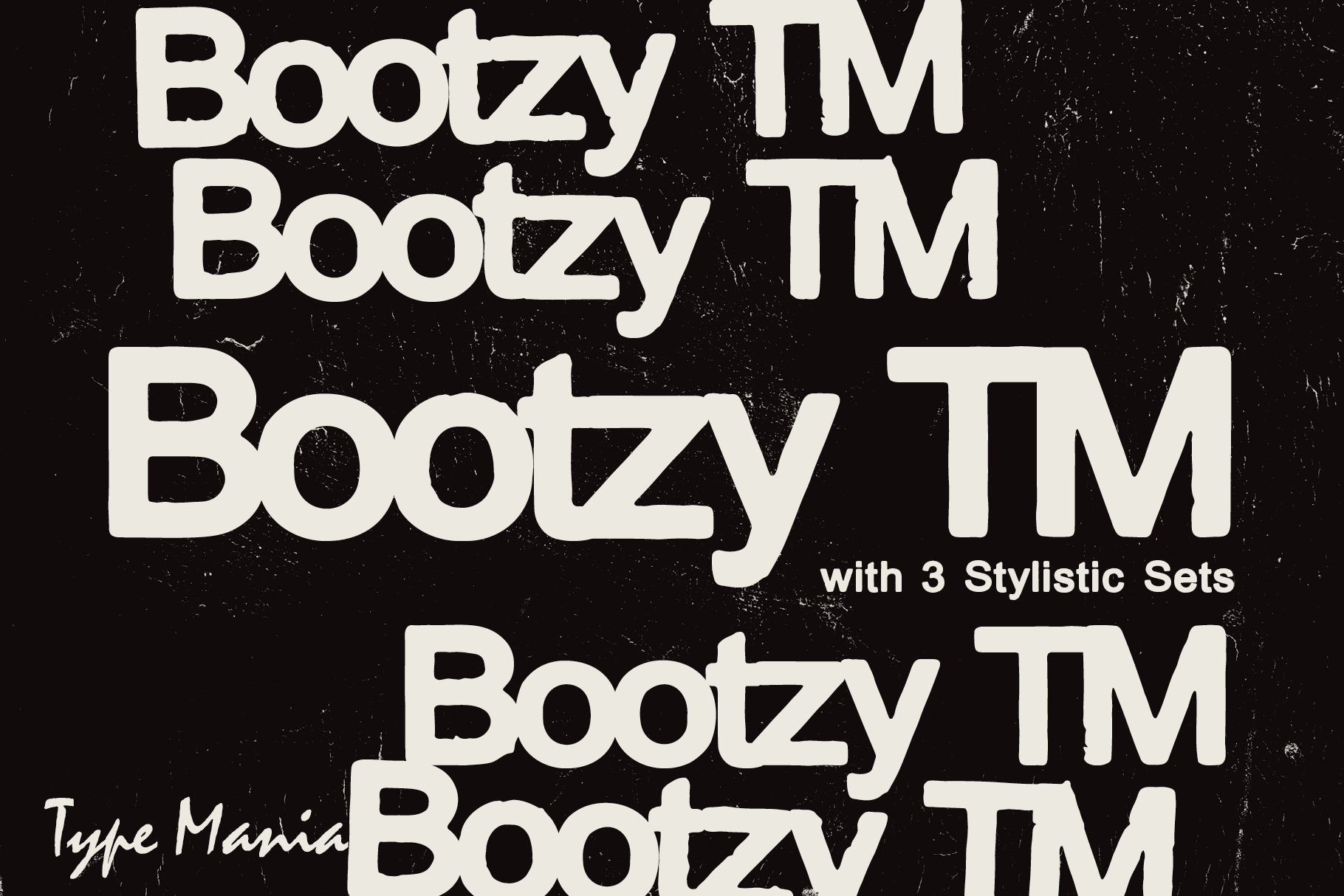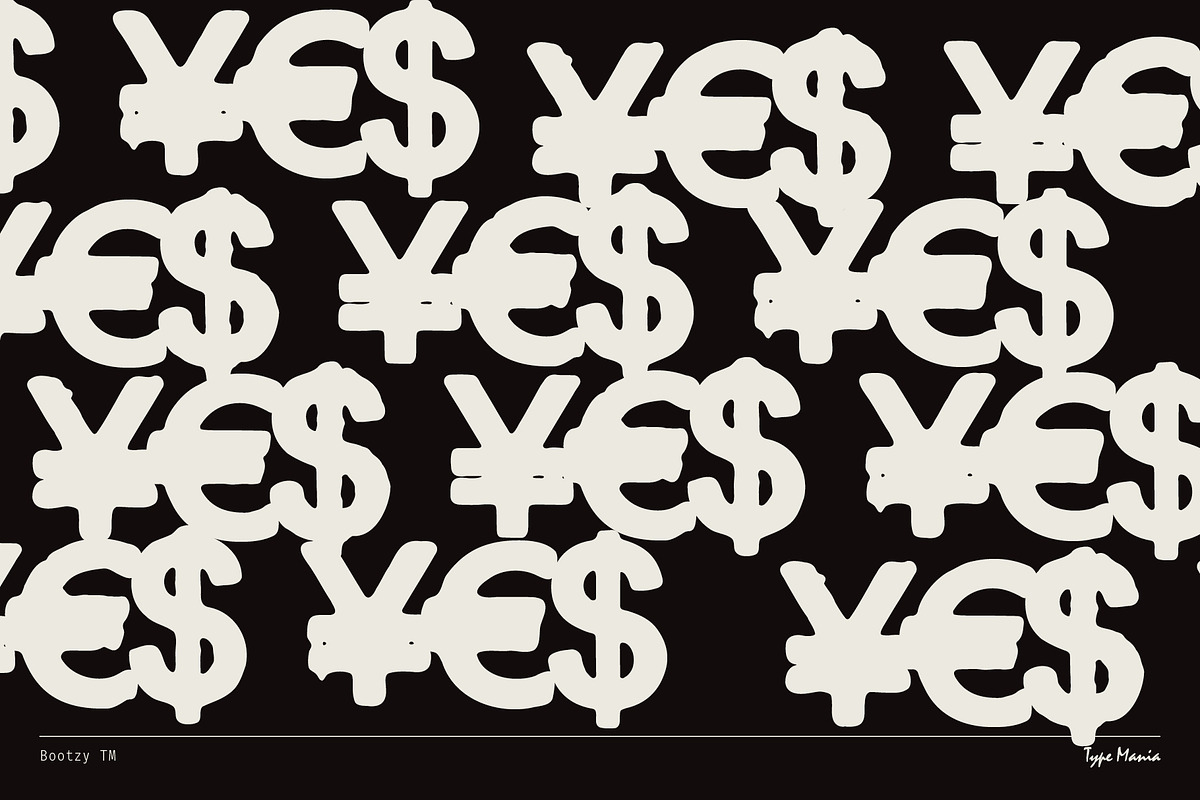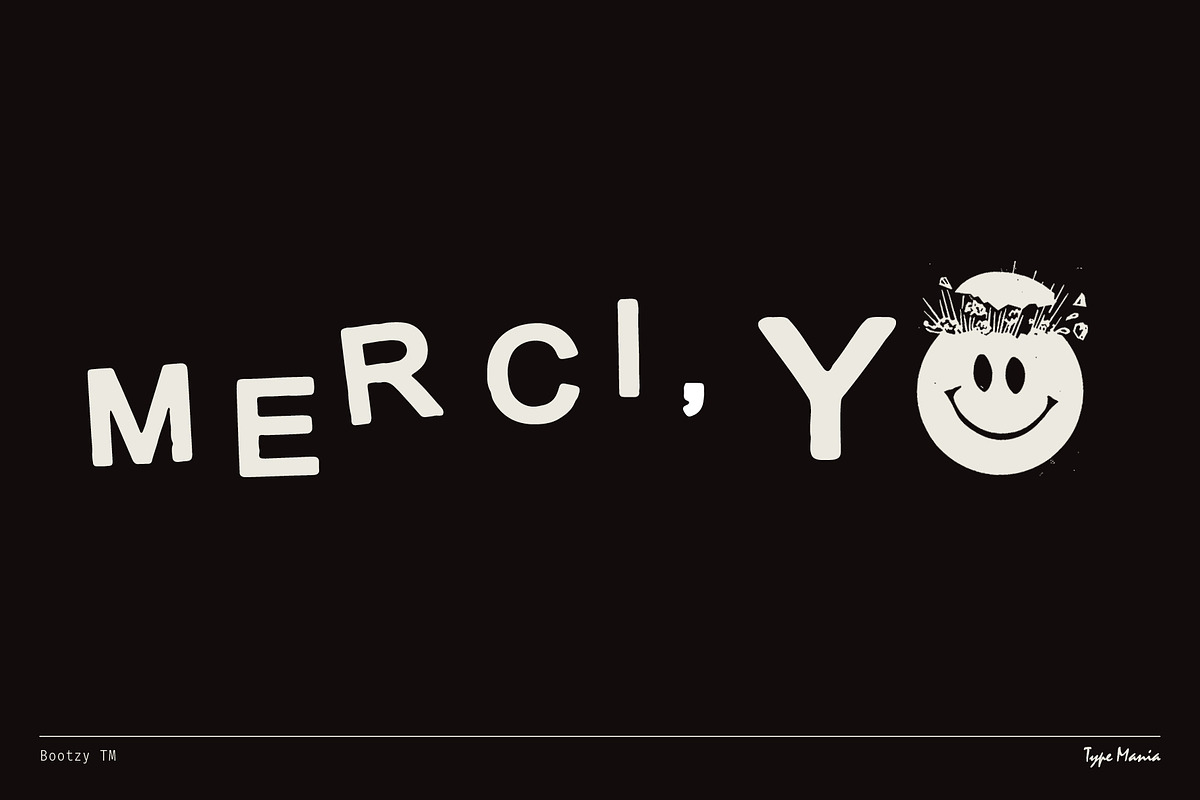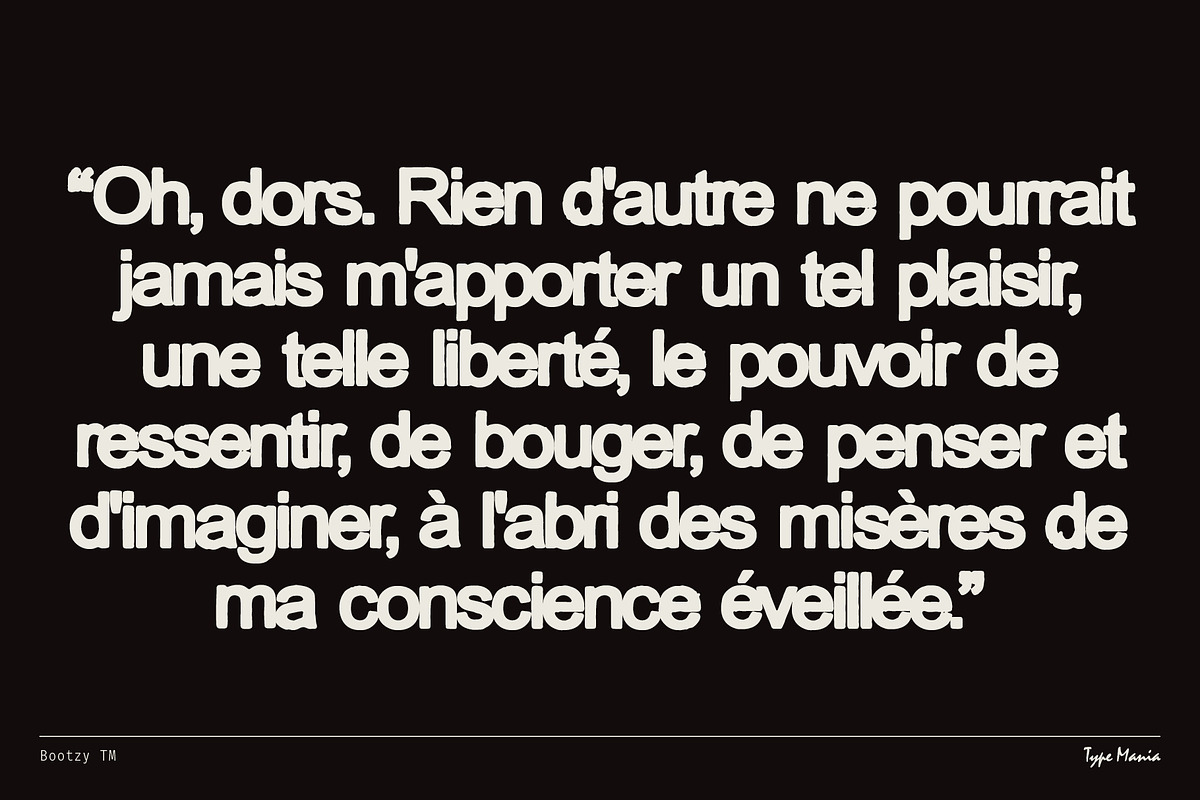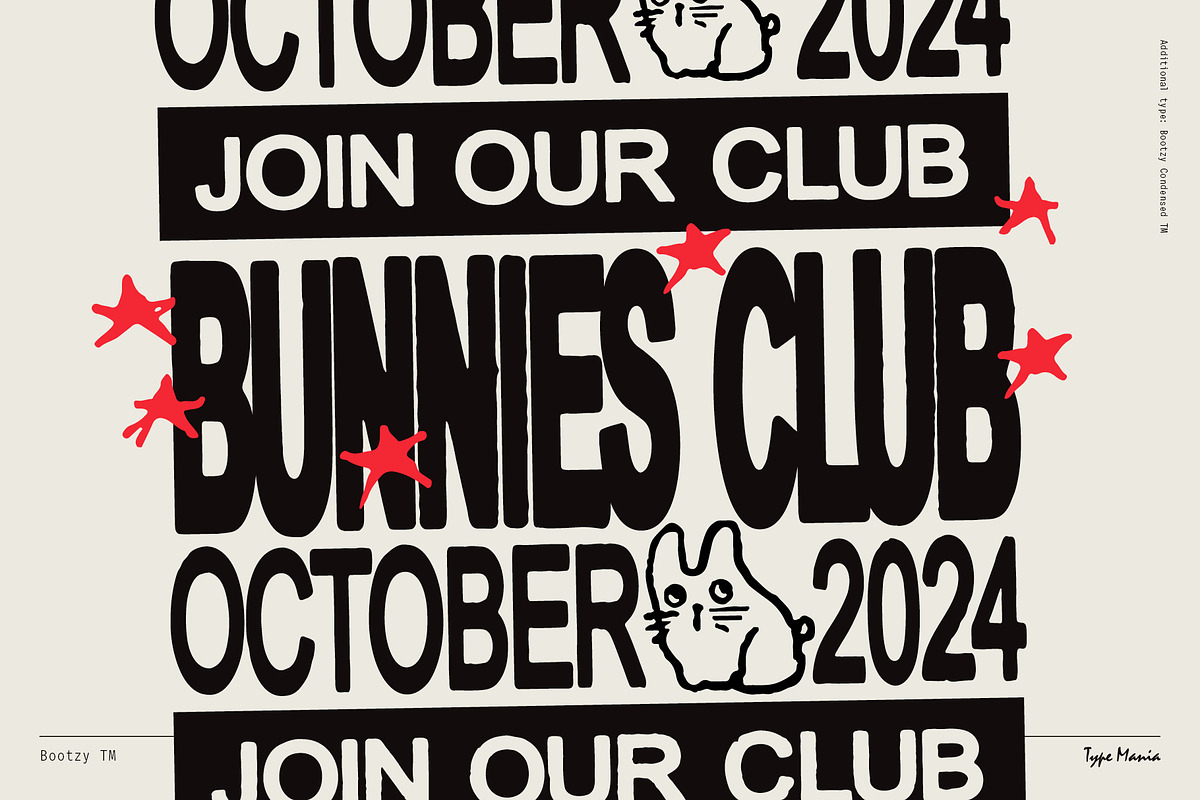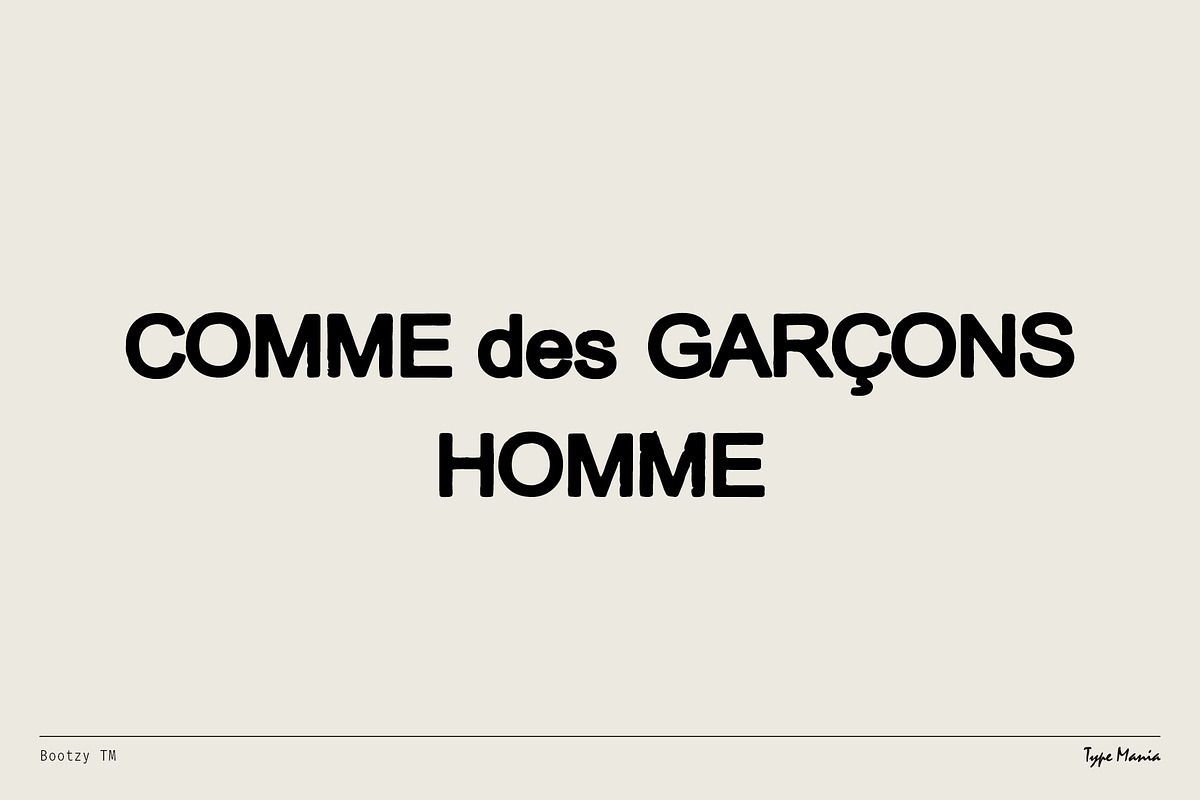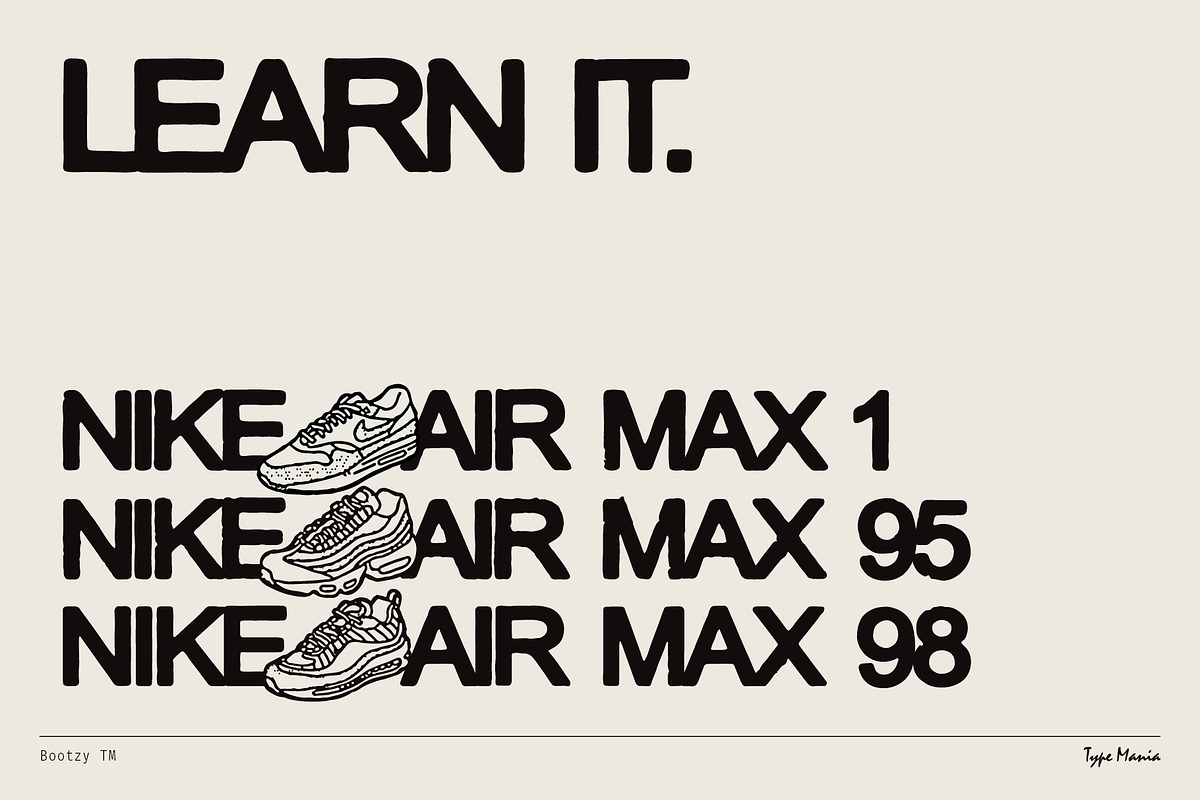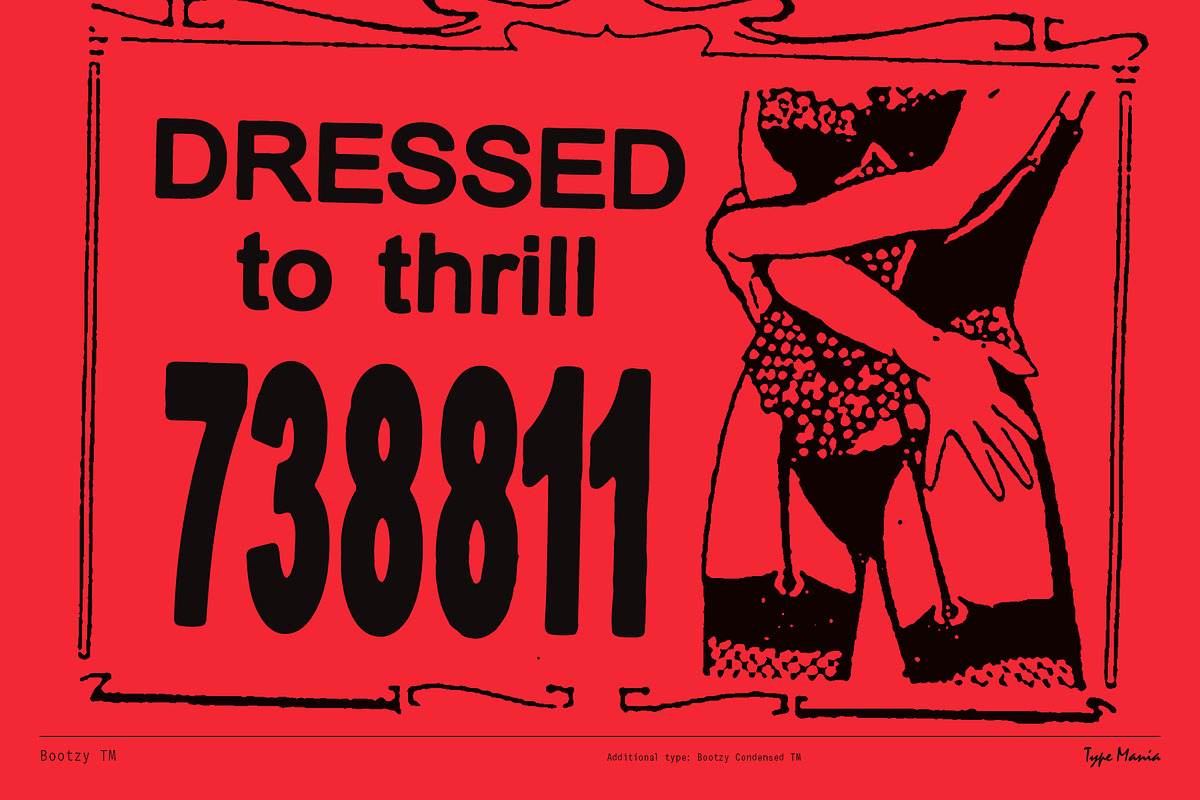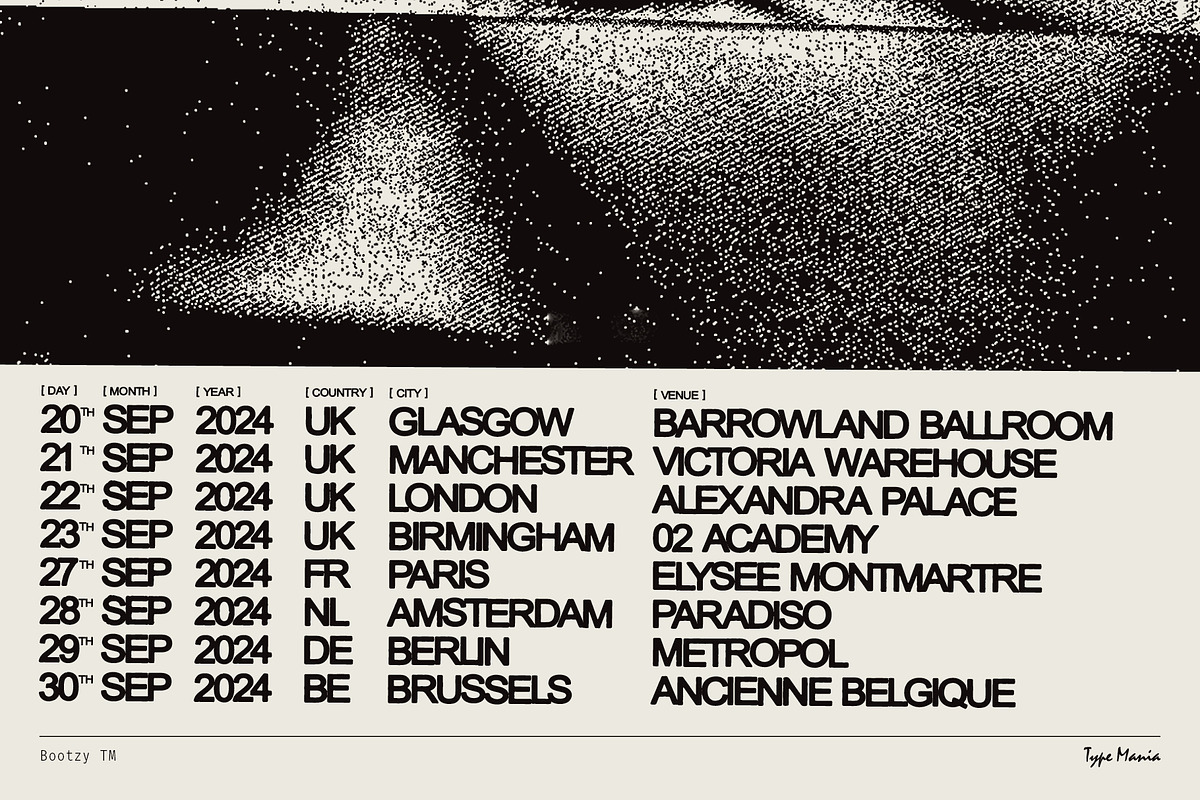
Bootzy TM – Rugged Dynamic Font
Introducing Bootzy TM. A tough sans serif designed to elevate your flyers, album covers, t-shirt designs; what have you. With three stylistic sets, the glyphs shuffle automatically, infusing your design with character and texture.
OpenType features
3 stylistic sets
The font is programmed to automatically shift between the stylistic sets whenever the same glyphs are typed side by side